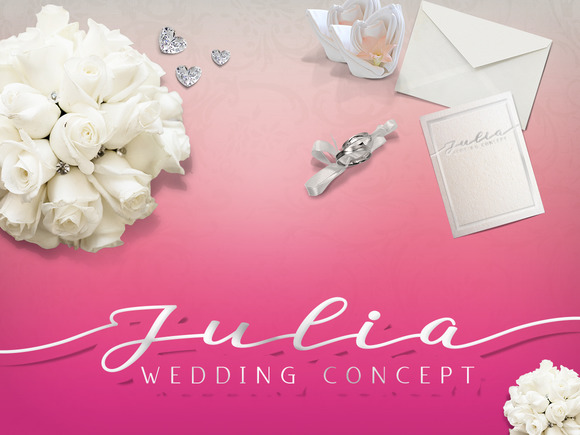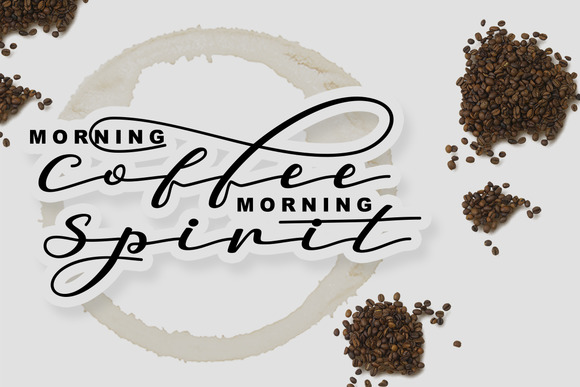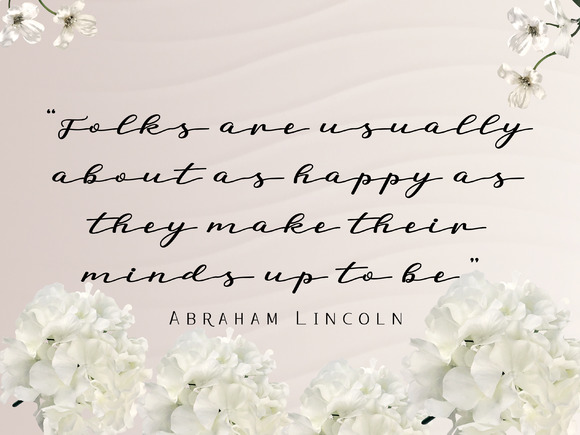
Introducing the Badegan Calligraphy Font: Elevate Your Designs with Elegance
In the world of typography, calligraphy fonts have always been a favorite among designers and crafters. They add a touch of elegance, sophistication, and personality to any design project. If you’re looking for a fresh and modern script font to take your designs to the next level, look no further than the Badegan Calligraphy font. This stunning font features a beautiful calligraphy style with decorative letters and a dancing baseline, making it perfect for a wide range of design applications.
What Makes Badegan Calligraphy Font Stand Out?
The Badegan Calligraphy font is a versatile and unique font that offers a range of features that set it apart from other calligraphy fonts. Here are some of its key characteristics:
- Fresh and Modern Design: The Badegan Calligraphy font boasts a fresh and modern design that is sure to catch the eye. Its stunning calligraphy style features decorative letters and a dancing baseline, giving it a dynamic and elegant feel.
- 377 Unique Glyphs: With 377 unique glyphs, this font offers a wide range of possibilities for customization and creativity. You can use it over and over again and keep coming up with unique combinations, making it a great value for designers and crafters.
- PUA Encoding (Private Use Area): The Badegan Calligraphy font features PUA encoding, which allows for easy access to glyphs and swashes. This makes it easy to use the font with design software and ensures that you can get the most out of its features.
- Swashes, Stylistic Sets, Stylistic Alternates, and Contextual Alternates: This font comes with a range of features that allow for advanced typographic control. With swashes, stylistic sets, stylistic alternates, and contextual alternates, you can customize the font to suit your design needs and create unique and beautiful text.
Perfect for Personalized Items and Design Projects
The Badegan Calligraphy font is perfect for a wide range of design applications, from personalized items to large-scale design projects. Its elegant and sophisticated design makes it ideal for:
- Personalized Stationery and Invitations: Add a touch of elegance to your stationery and invitations with the Badegan Calligraphy font. Its beautiful calligraphy style and decorative letters make it perfect for special occasions.
- Branding and Packaging: Use the Badegan Calligraphy font to create stunning brand identities and packaging designs. Its modern and fresh design makes it perfect for businesses looking to stand out.
- Web Design and Digital Marketing: The Badegan Calligraphy font is also perfect for web design and digital marketing projects. Its clean and elegant design makes it easy to read and visually appealing.
Why Designers and Crafters Love the Badegan Calligraphy Font
Designers and crafters love the Badegan Calligraphy font for its versatility, elegance, and range of features. Here are some reasons why:
- Ease of Use: The Badegan Calligraphy font is easy to use and comes with a range of features that make it simple to customize and control.
- High-Quality Design: The font boasts a high-quality design that is both elegant and sophisticated.
- Endless Creative Possibilities: With 377 unique glyphs and a range of advanced typographic features, the Badegan Calligraphy font offers endless creative possibilities for designers and crafters.
| Font Name | Badegan Calligraphy Font |
| Author | Ijem RockArt |
In conclusion, the Badegan Calligraphy font is a stunning and versatile font that is perfect for designers and crafters looking to elevate their designs with elegance and sophistication. Its fresh and modern design, range of features, and high-quality construction make it a great value for anyone looking to add a touch of calligraphy to their design projects. Whether you’re creating personalized items, branding and packaging, or web design and digital marketing projects, the Badegan Calligraphy font is sure to impress.